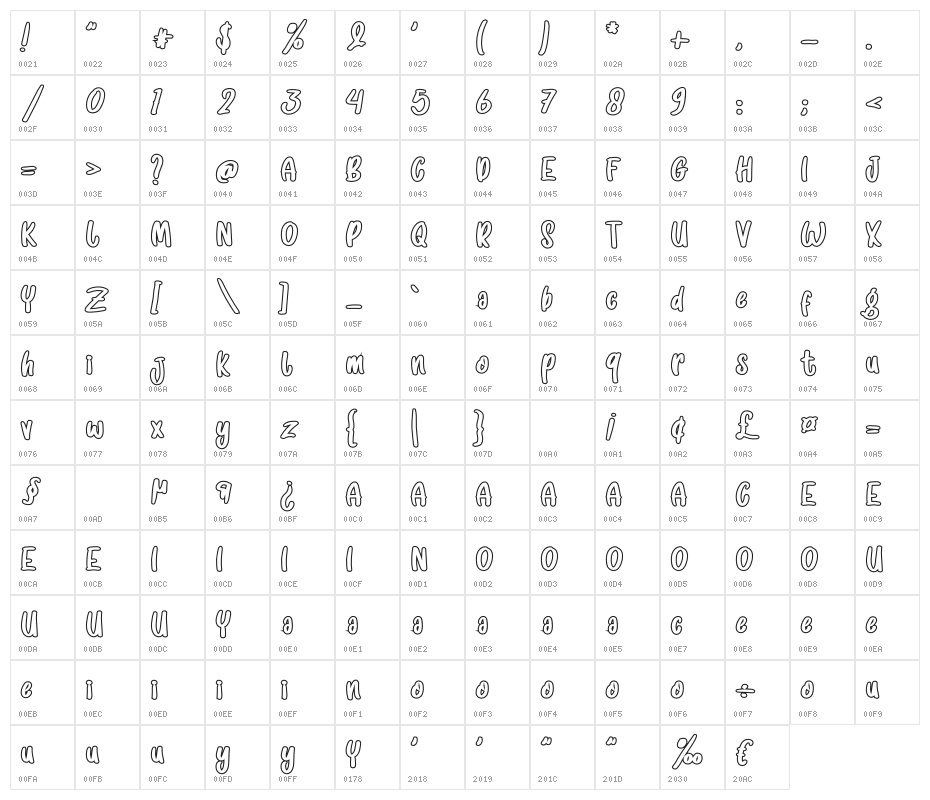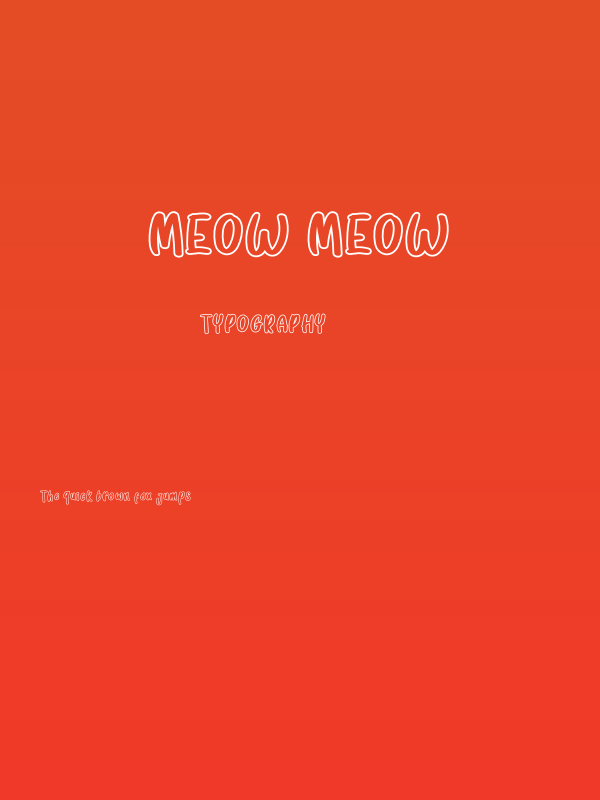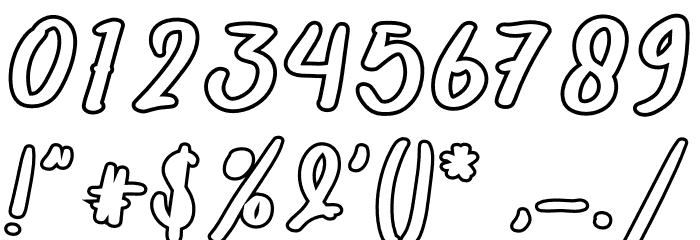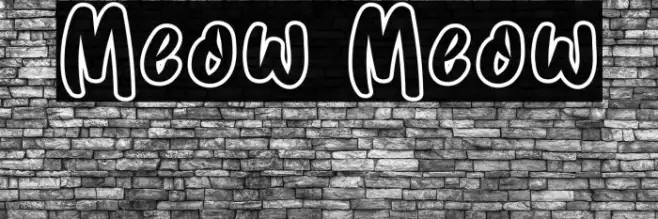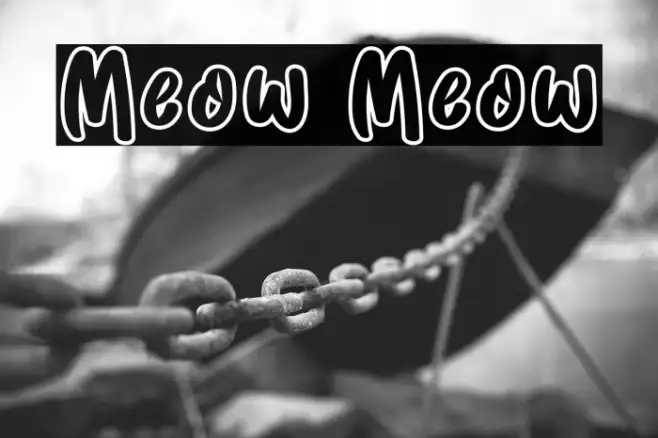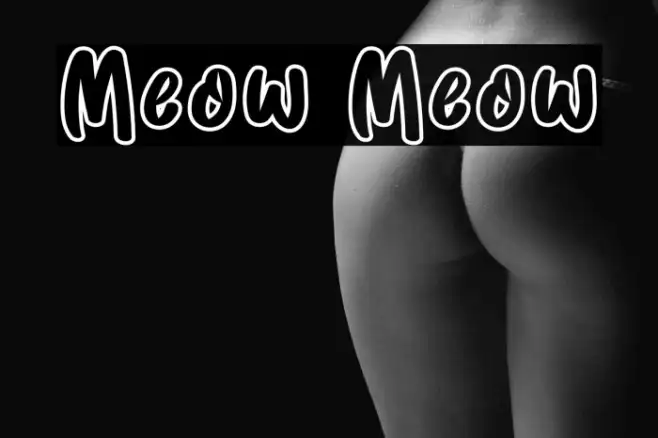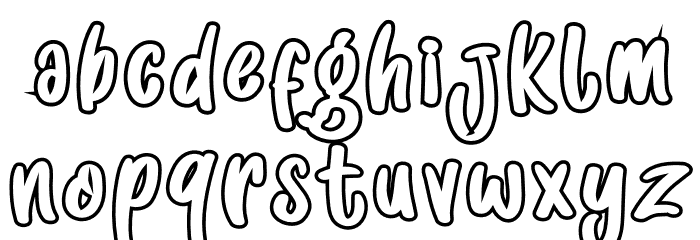
Meow Meow Font
Meow Meow Description
This playful and whimsical font features bold, rounded letters with a hand-drawn appearance. Each character is outlined, giving it a bubble-like effect that adds to its charm. The uppercase and lowercase letters maintain a consistent style, with a slight slant that suggests movement and energy. The numbers and special characters are equally dynamic, fitting seamlessly with the overall aesthetic. This font's unique personality makes it stand out, perfect for projects that require a fun and informal touch.
| Overall Style | Whimsical |
| Proposed Projects | Ideal for children's books, playful branding, party invitations, and creative posters. |